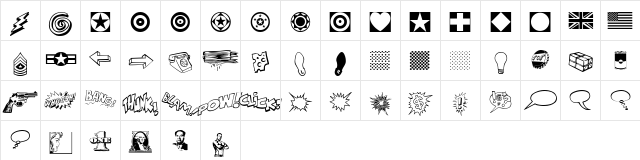
P22 Pop Art Extras
Style: Extras
P22 Pop Art Family
P22 Pop Art Extras
Design Context for P22 Pop Art
P22 Pop Art is a composed and adaptable typeface that performs quietly and consistently across a wide range of design contexts.